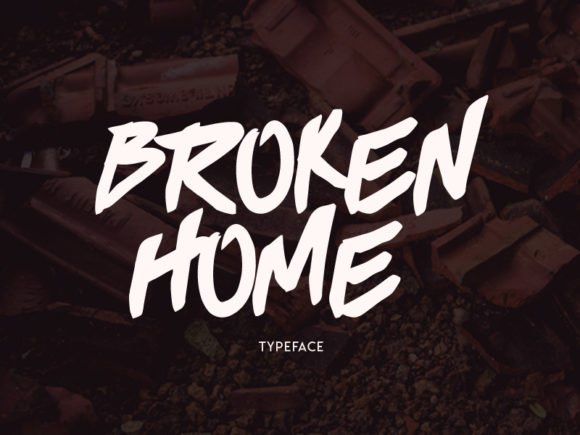
The Perfect Brush Stroke for Your Next Masterpiece Have you ever been in the middle of a creative project, staring blankly at a blank canvas or screen, searching for that elusive spark to bring your vision to life? It’s a feeling every artist and designer knows all too well. But what if that spark was…